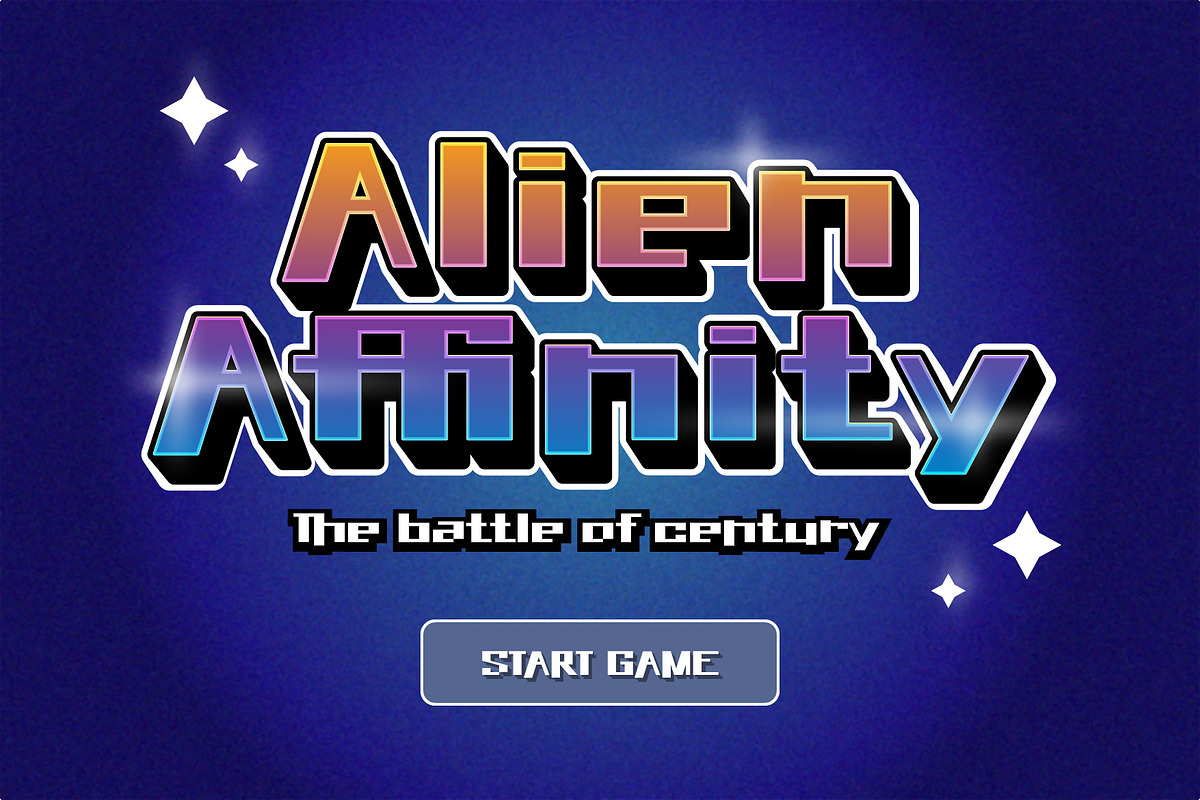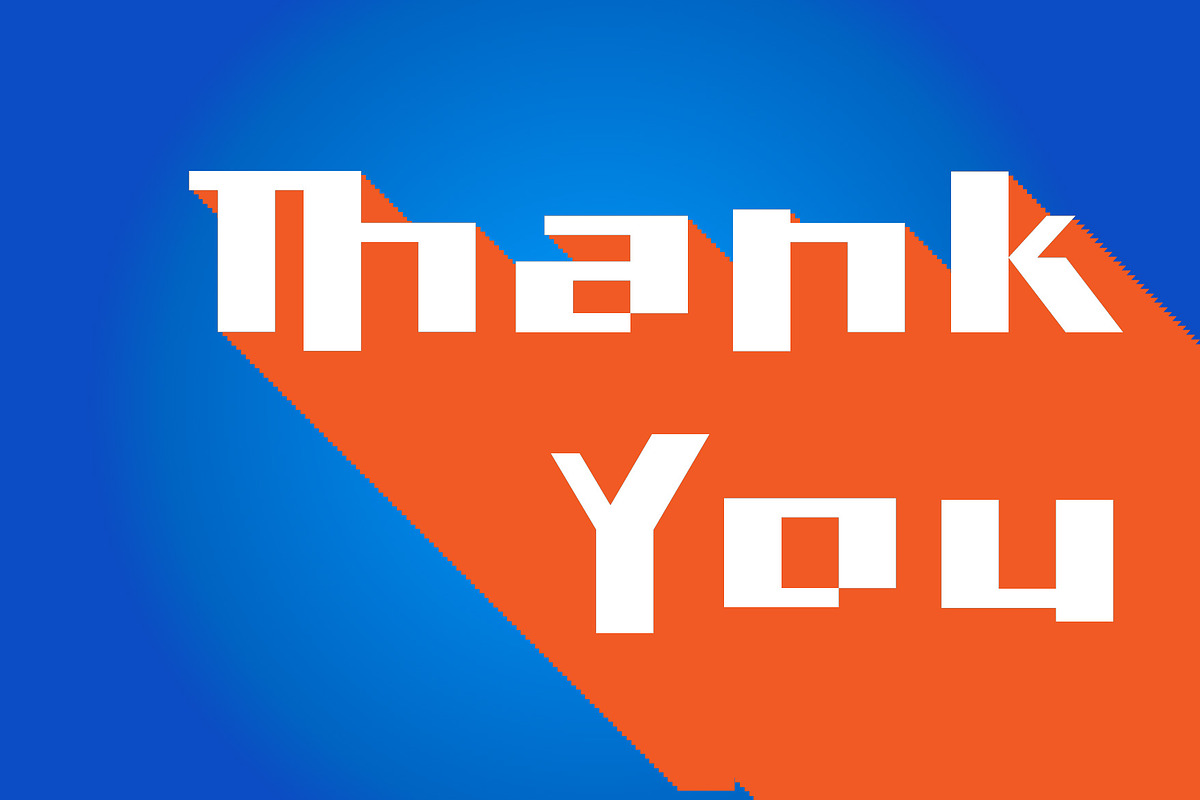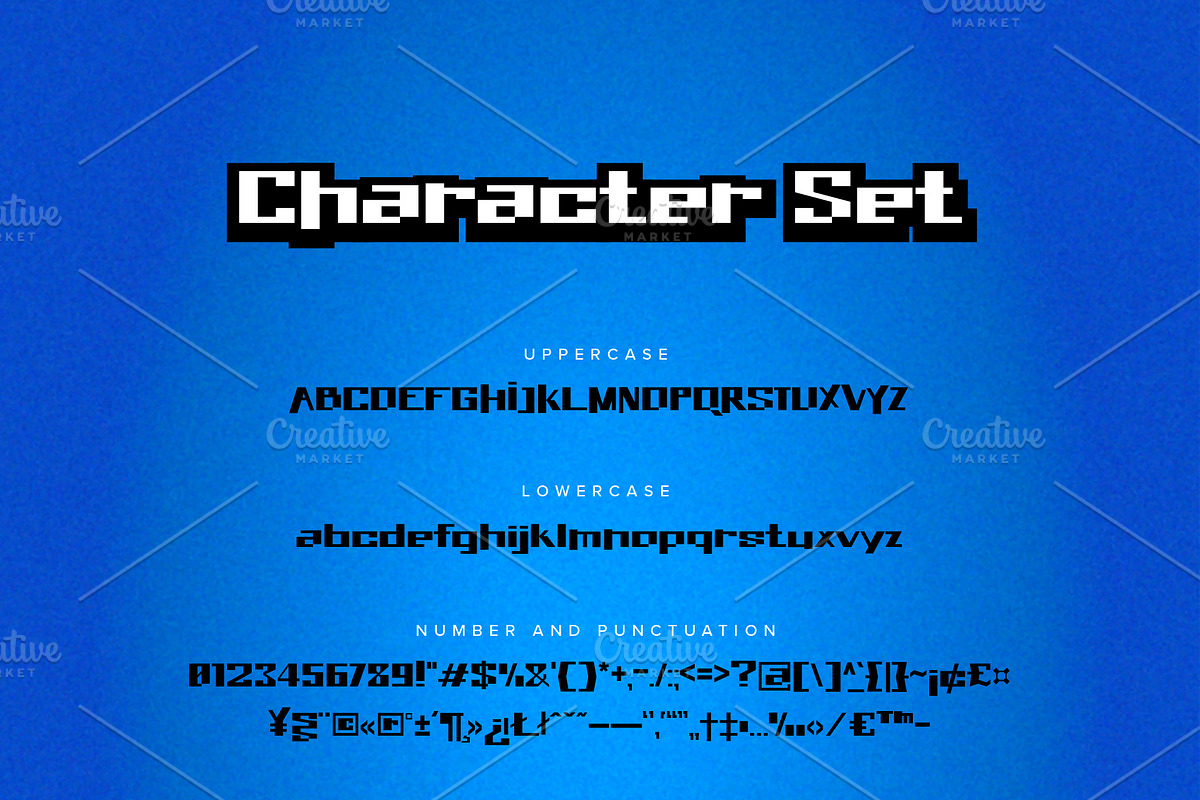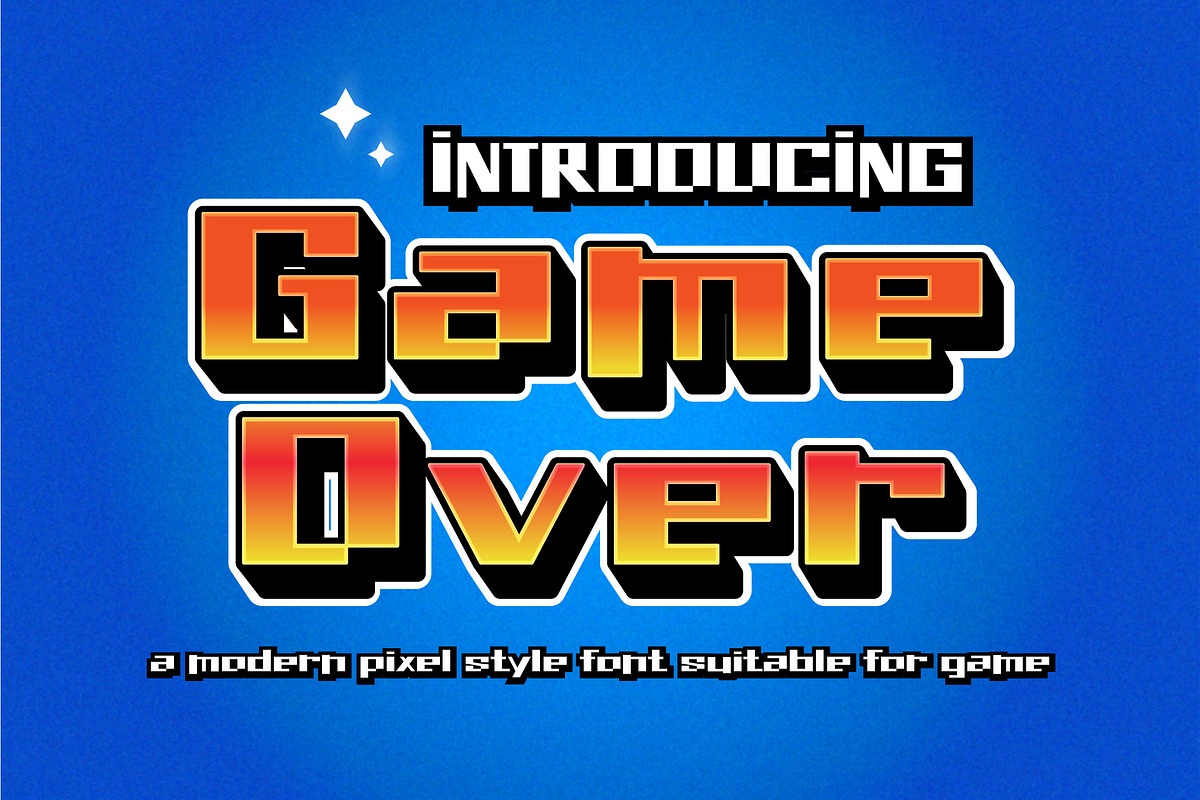
Game Over - Modern Pixel Style Font
Game Over is a modern pixel style font made suitable for game purpose or other display purpose. It features a unique style and will add a unique feel to your upcoming projects. Get inspired by its unique feel and use it to create games!
Game Over - Modern Pixel Style Font by Kreativ Space fits naturally into Branding, posters, packaging, typography.